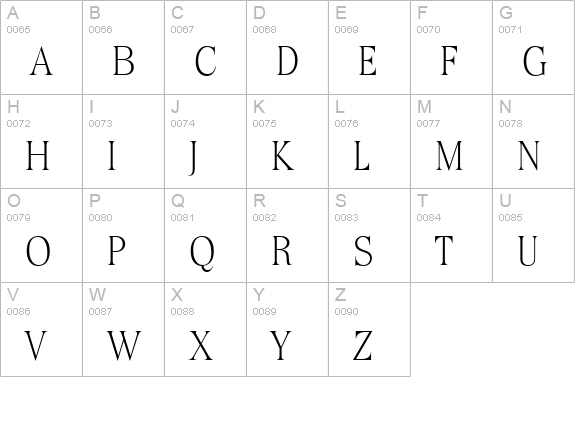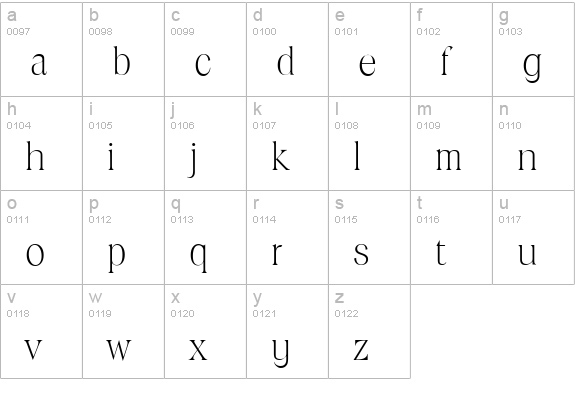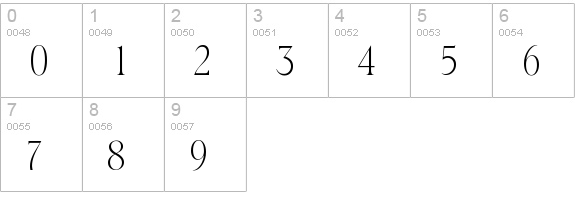
ToledoSerial-Xlight-Regular is the standard, neutral variant in the ToledoSerial typeface family \xE2\x80\x94 well suited to general body text, paragraphs, and standard typographic work.
ToledoSerial-Xlight-Regular is a modern and elegant font that exudes sophistication and style. With its sleek lines and clean design, this typeface is perfect for various design projects, from branding to editorial design. The light weight of the font adds a touch of delicacy and refinement, making it ideal for creating a subtle and classy aesthetic. The best part is that ToledoSerial-Xlight-Regular is available for free download at FontsMarket.com. This means you can easily access this beautiful font and use it in your projects without any cost. Whether you're designing a website, creating a logo, or working on a print publication, ToledoSerial-Xlight-Regular will elevate your work and give it a touch of timeless elegance. Don't miss out on the opportunity to enhance your designs with this stunning font. Download ToledoSerial-Xlight-Regular for free today at FontsMarket.com and bring a touch of sophistication to your projects.